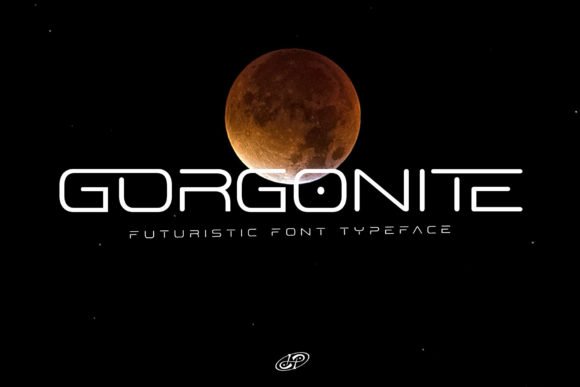
Unlocking the Future of Typography: Gorgonite Font
You’ve spent hours pouring over your design, tweaking every detail until it’s just right. But then, that moment of magic happens – the perfect font comes along and elevates your entire project. For designers, finding that elusive font can be a game-changer. It’s the difference between a decent design and a truly show-stopping one.
Enter the Gorgonite Font, a futuristic display font that’s perfect for adding a touch of cool to your web designs, business cards, or any other project that needs a little extra oomph. This versatile font is ideal for designers looking to give their work a unique edge. With Gorgonite Font, you can create designs that are truly one-of-a-kind and leave a lasting impression on your audience.
Gorgonite Font Key Features
- Font Family: Gorgonite Font, a unique sans-serif font with a futuristic and edgy feel.
- Unique Characteristics: The font features a distinctive, geometric shape with sharp angles and a bold, futuristic aesthetic, perfect for science fiction, technology, and gaming-related designs.
Gorgonite Font Review
Overall, I’d say the Gorgonite Font has its moments, but it’s not without its flaws. Let’s dive in and see what it’s got to offer.
- Unique and quirky design: The Gorgonite Font has a distinctive look that sets it apart from other fonts. It’s perfect for adding some personality to your designs.
- Good for display text: The font’s bold lines and irregular shapes make it well-suited for headings and titles, where you want to grab attention.
- Customization options: The font comes with a range of weights and styles, giving you some flexibility to adjust the look to your taste.
- Readability issues: While the font is great for display text, it can be difficult to read in smaller sizes or for extended blocks of text.
- Limited compatibility: I’ve noticed some compatibility issues with certain software and operating systems, which can be frustrating.
- Not ideal for body text: The font’s irregular shapes and lines can make it hard to read in larger blocks of text, which can be a problem for body copy.
The Gorgonite Font is a fun and quirky addition to any designer’s toolkit, but it’s not without its limitations. While it’s perfect for display text and adding some personality to your designs, it may not be the best choice for body copy or situations where readability is crucial.
Tips for Getting the Most Out of Gorgonite Font
1. Use the Gorgonite font to create eye-catching headlines and titles.
2. Pair the Gorgonite font with other bold, sans-serif fonts for a striking contrast.
3. Experiment with different font sizes and colors to add visual interest to your design.
Common Use Cases for Gorgonite Font
The Gorgonite font is commonly used in:
1. Graphic design and branding.
2. Digital marketing and advertising.
3. Web design and development.